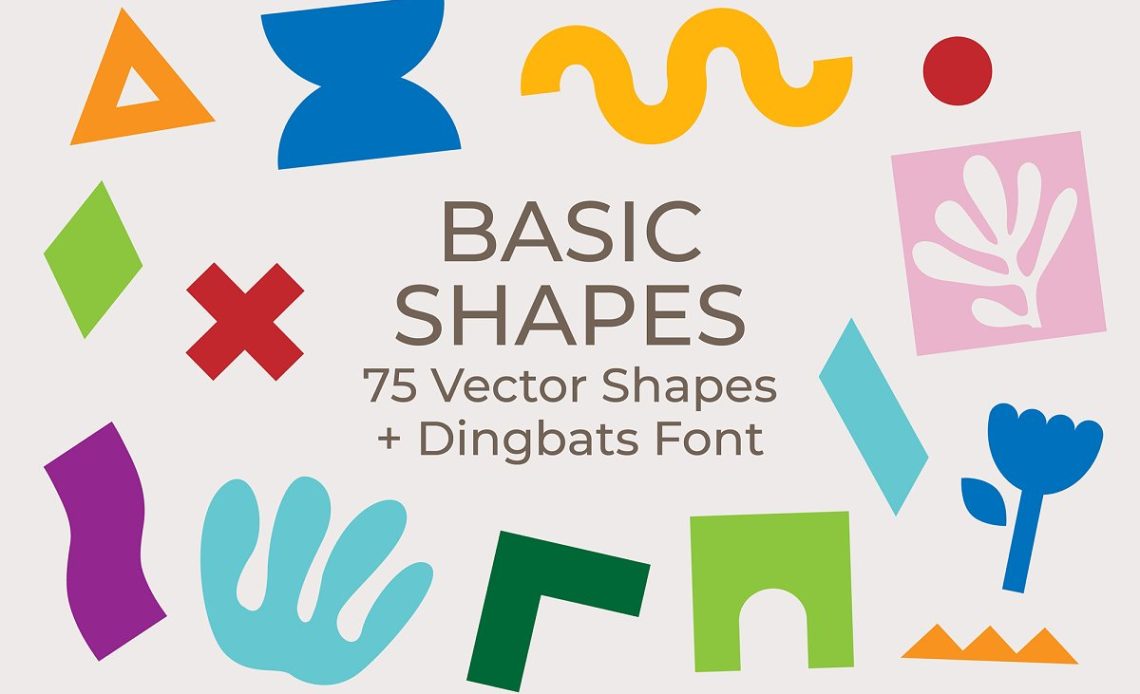
Introducing the Basic Shapes Kit + Dingbats Font, the ultimate collection of symbols that will take your designs to the next level. Created by the talented Maria, these shapes are far from basic - they are a masterpiece inspired by nature, modern design trends, Bruno Munari, retro patterns, and Matisse's cut outs. With 75 unique vector shapes, the possibilities are endless.
From surface patterns to branding and packaging to event flyers, these shapes will bring life and creativity to your designs. Gone are the days of bland and boring designs. With the Basic Shapes Kit, you can create eye-catching and captivating visuals that will leave a lasting impression.
What sets the Basic Shapes Kit apart is its versatility. You can easily customize each shape to suit your specific needs. Whether you want to change the colors, add a stroke, or mix and match to create a unique blend, these vectors have got you covered. The possibilities are truly endless.